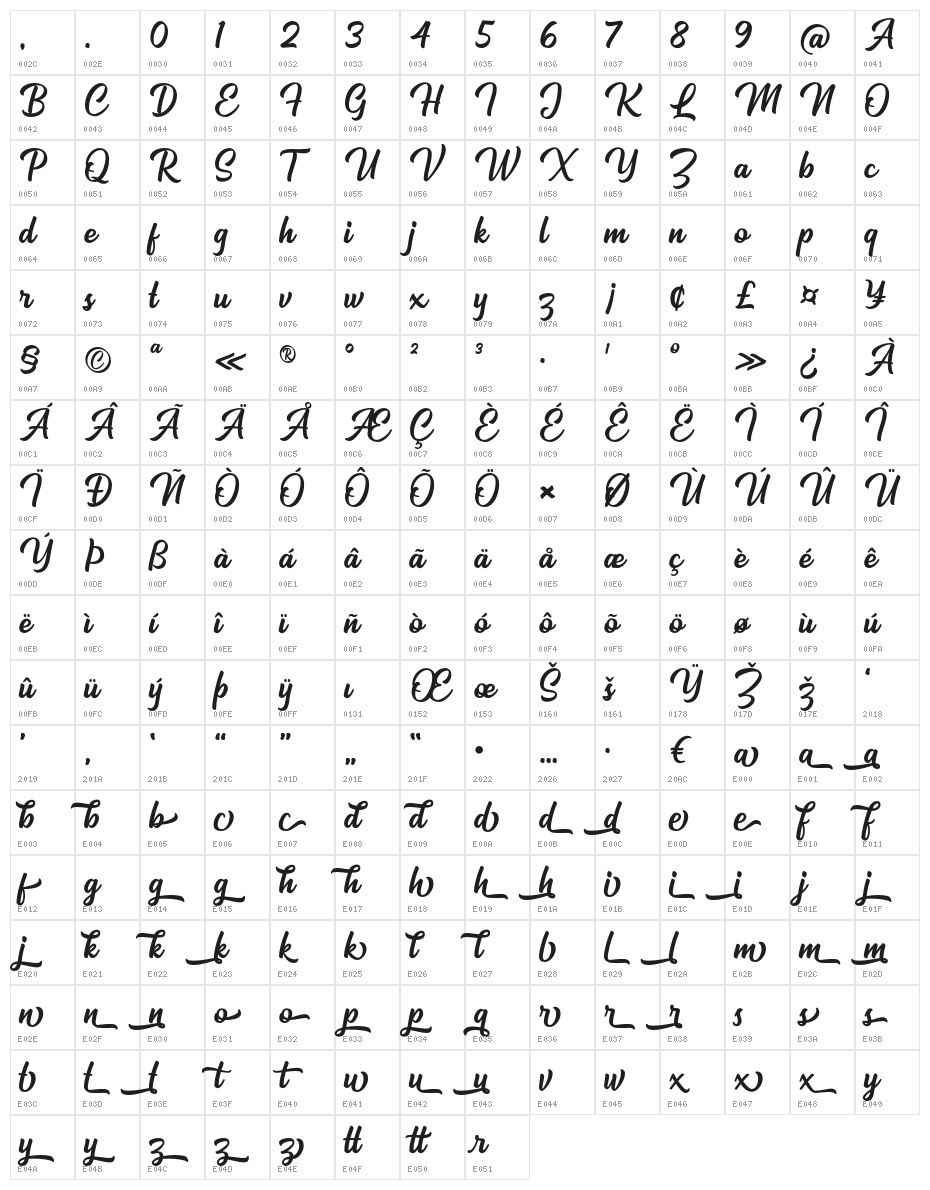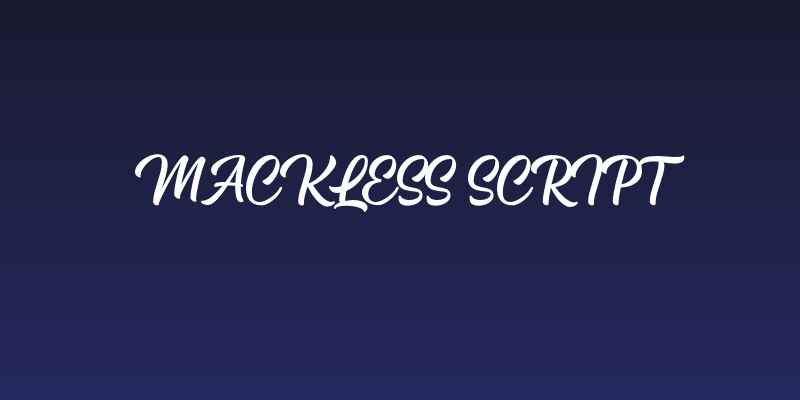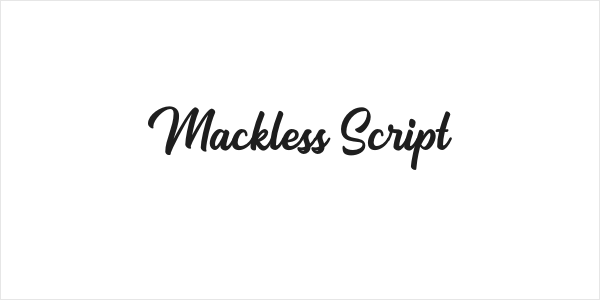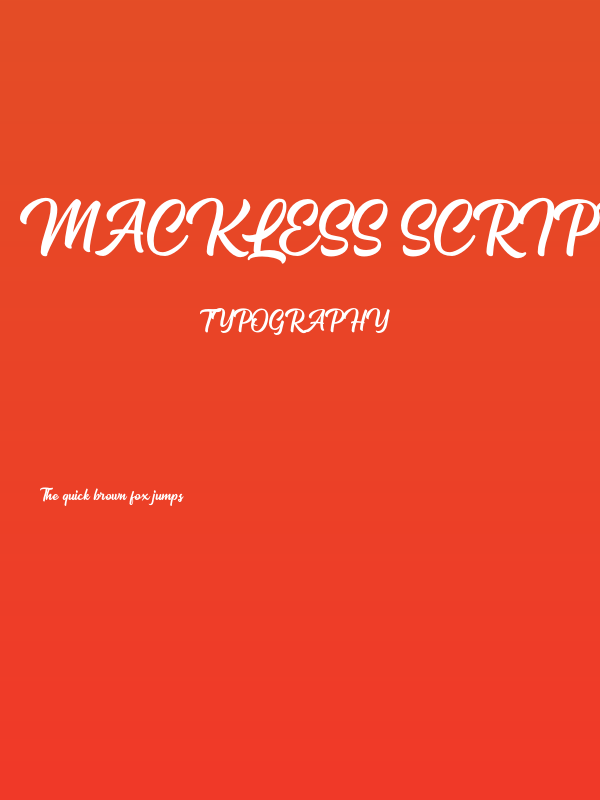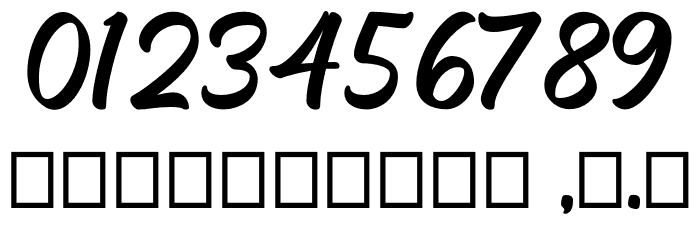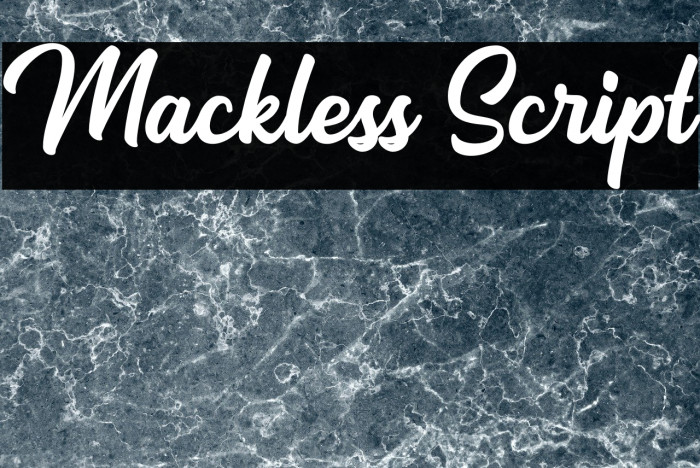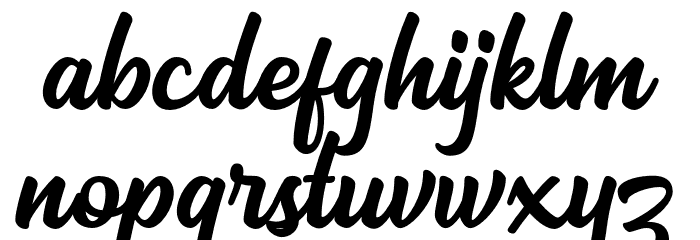
Mackless Script Font
Mackless Script Description
This font exudes a classic script style with a smooth, flowing appearance. The characters are elegantly connected, creating a sense of continuity and grace. The uppercase letters are slightly more ornate, with gentle curves and flourishes, while the lowercase letters maintain a consistent and harmonious flow. The numbers are clear and legible, matching the overall aesthetic of the script. This font is ideal for projects that require a touch of elegance and sophistication, such as invitations, branding, and decorative designs. The special characters are integrated seamlessly, maintaining the font's cohesive look.
| Proposed Projects | Ideal for wedding invitations, elegant branding, decorative signage, and sophisticated packaging. |